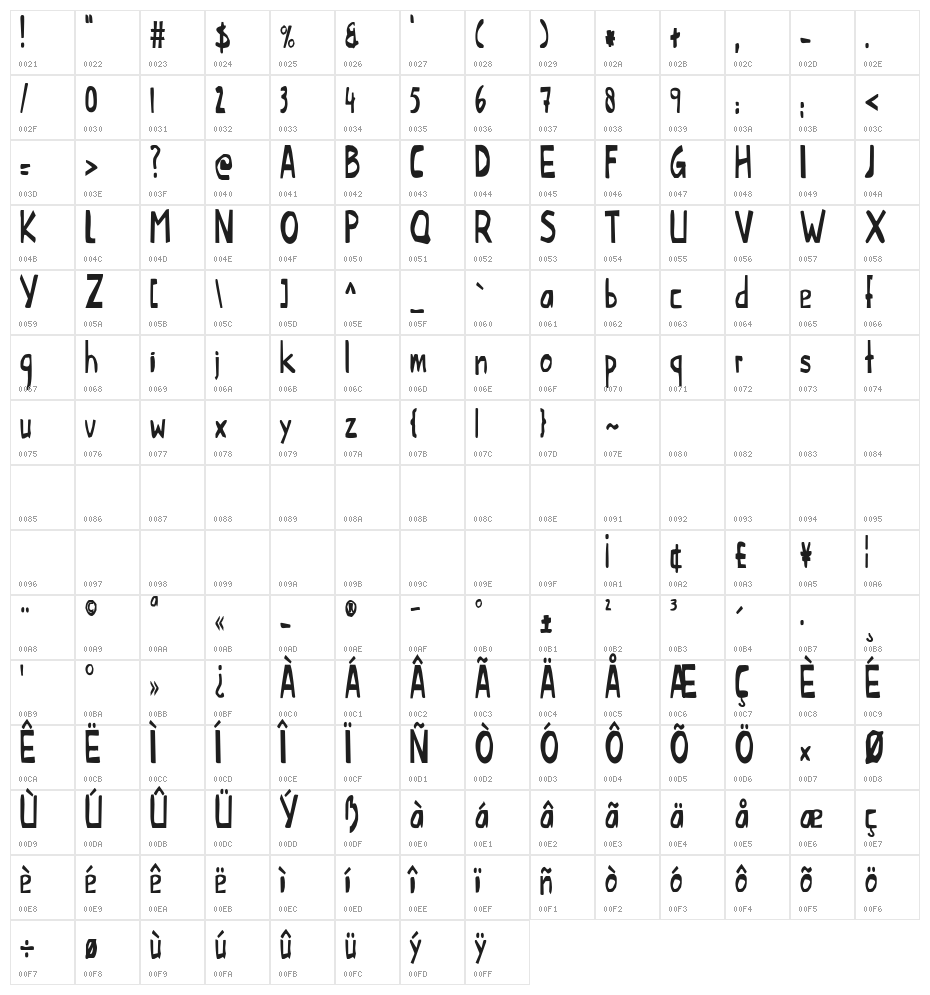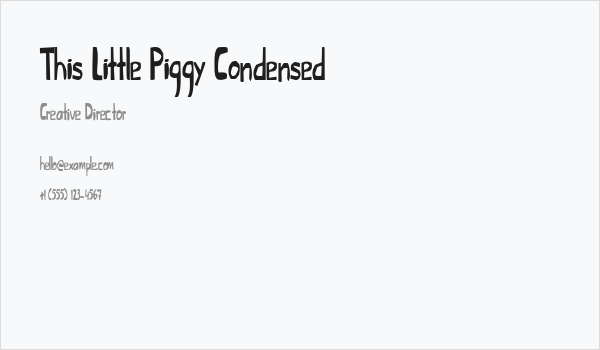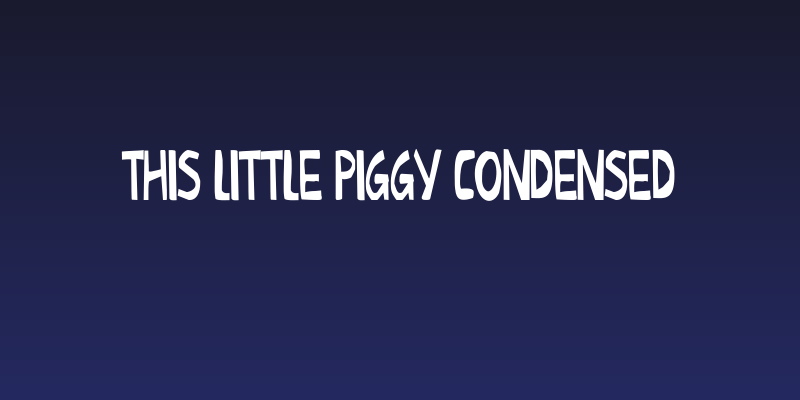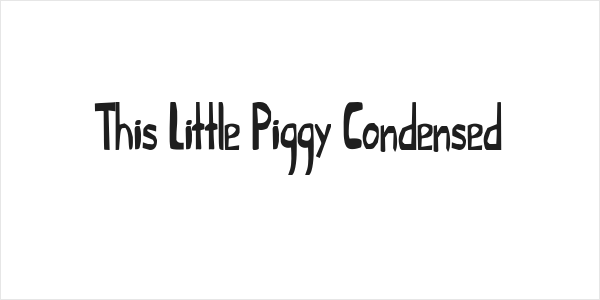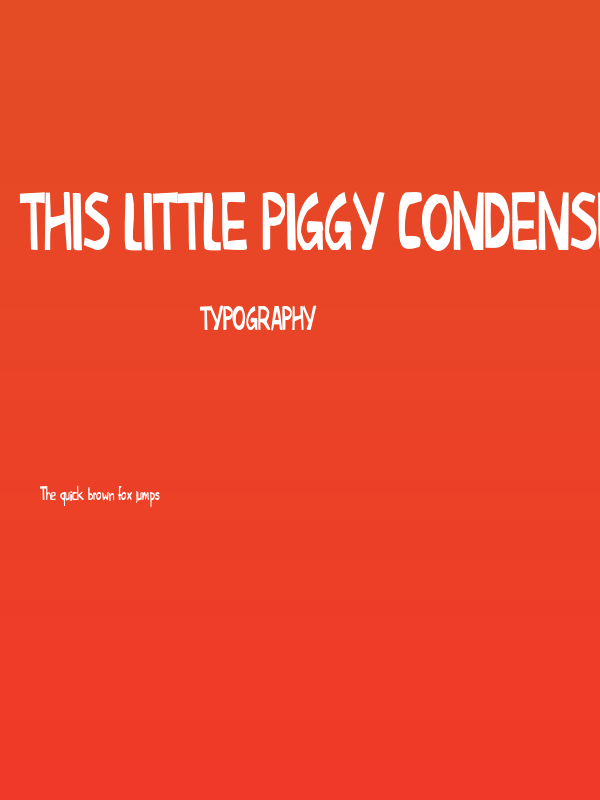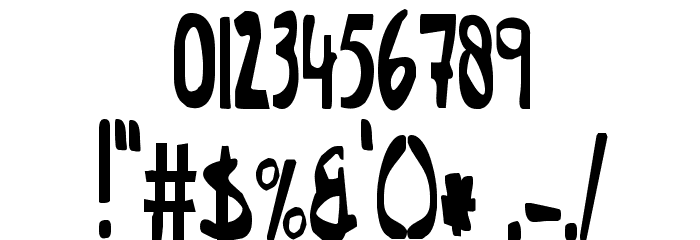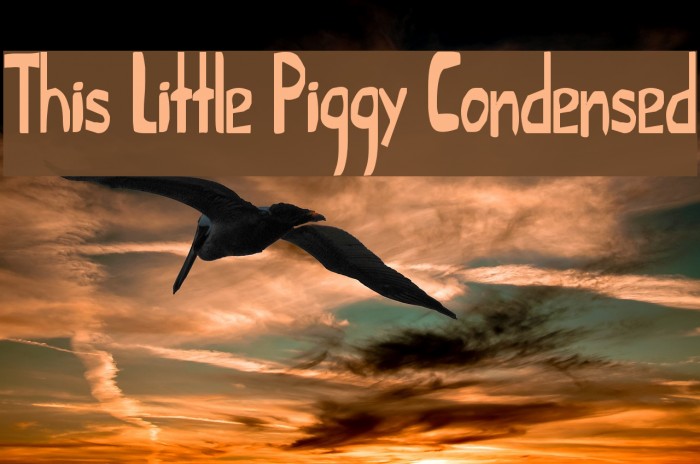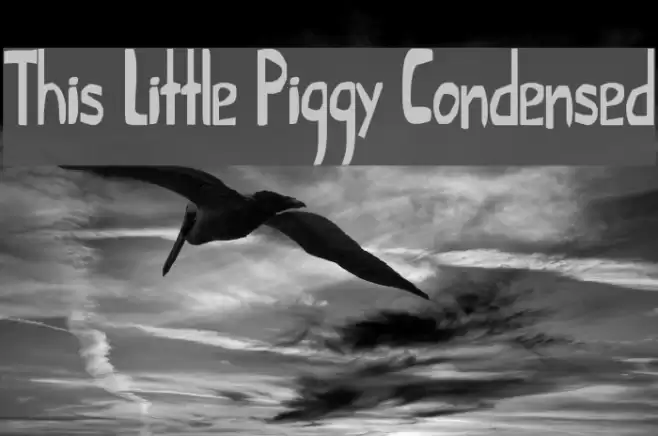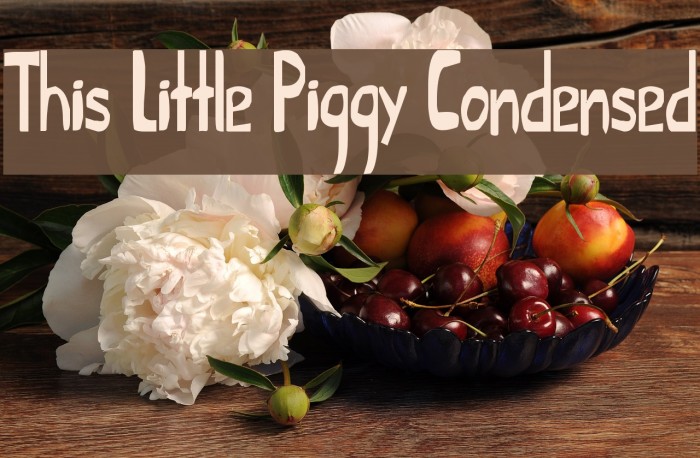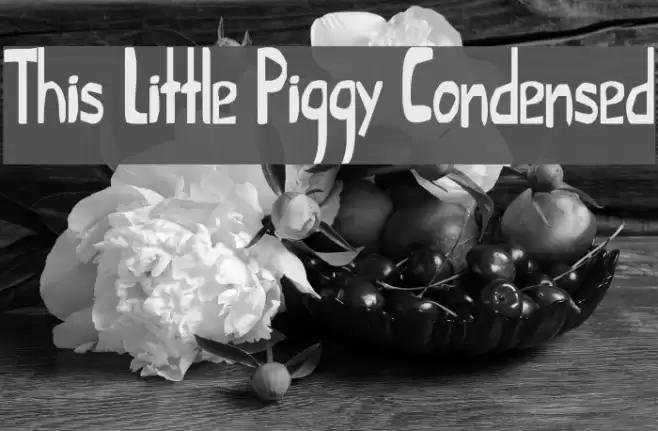
This Little Piggy Condensed Font
| Nome | This Little Piggy Condensed |
| Categorie | Comic |
| Stile generale | Playful, Quirky, Hand-drawn |
| Progetti proposti | Ideal for children's books, playful branding, party invitations, and creative posters. |